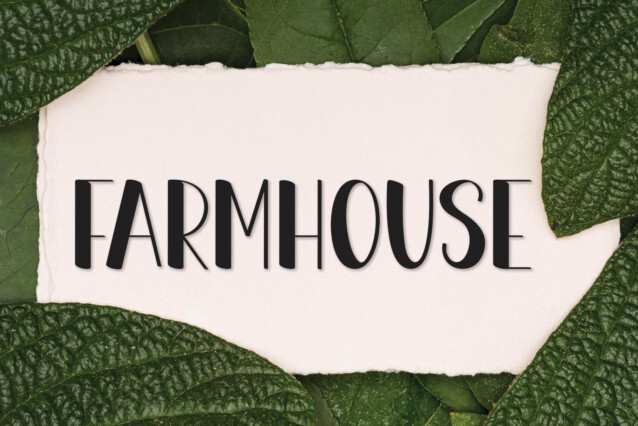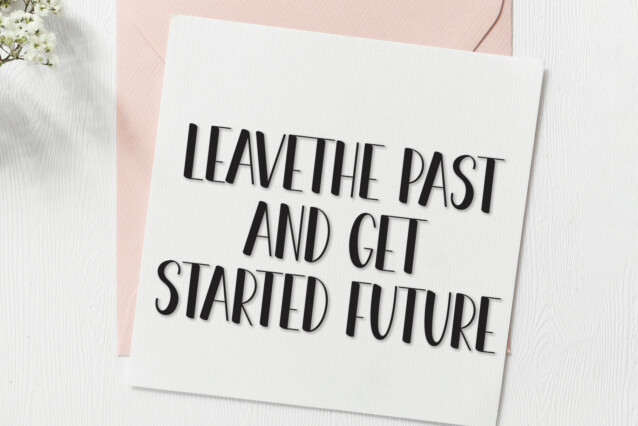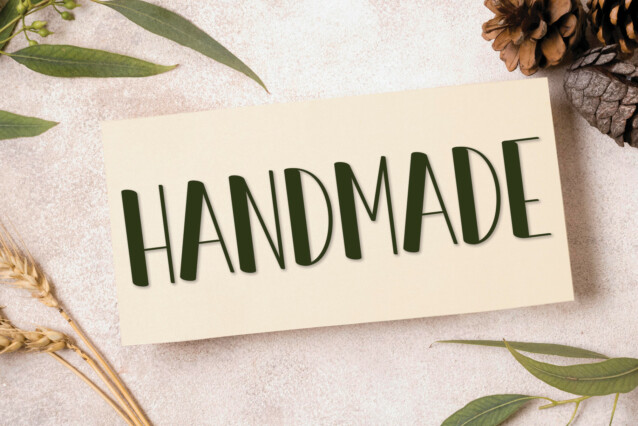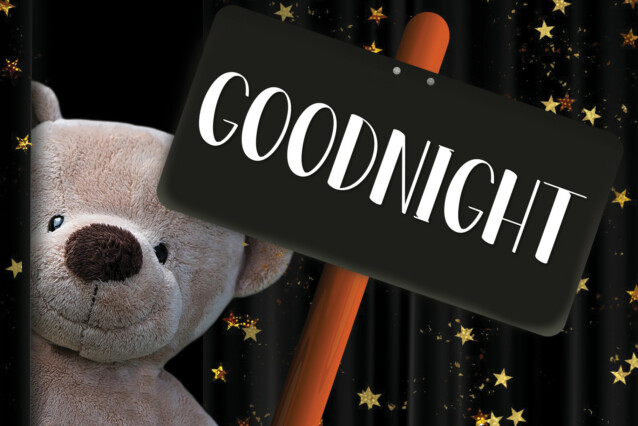
White Flower Display Font
White Flower Display Font is a modern and stylish handwritten sans serif font. Add it to your creative projects and enjoy the results!